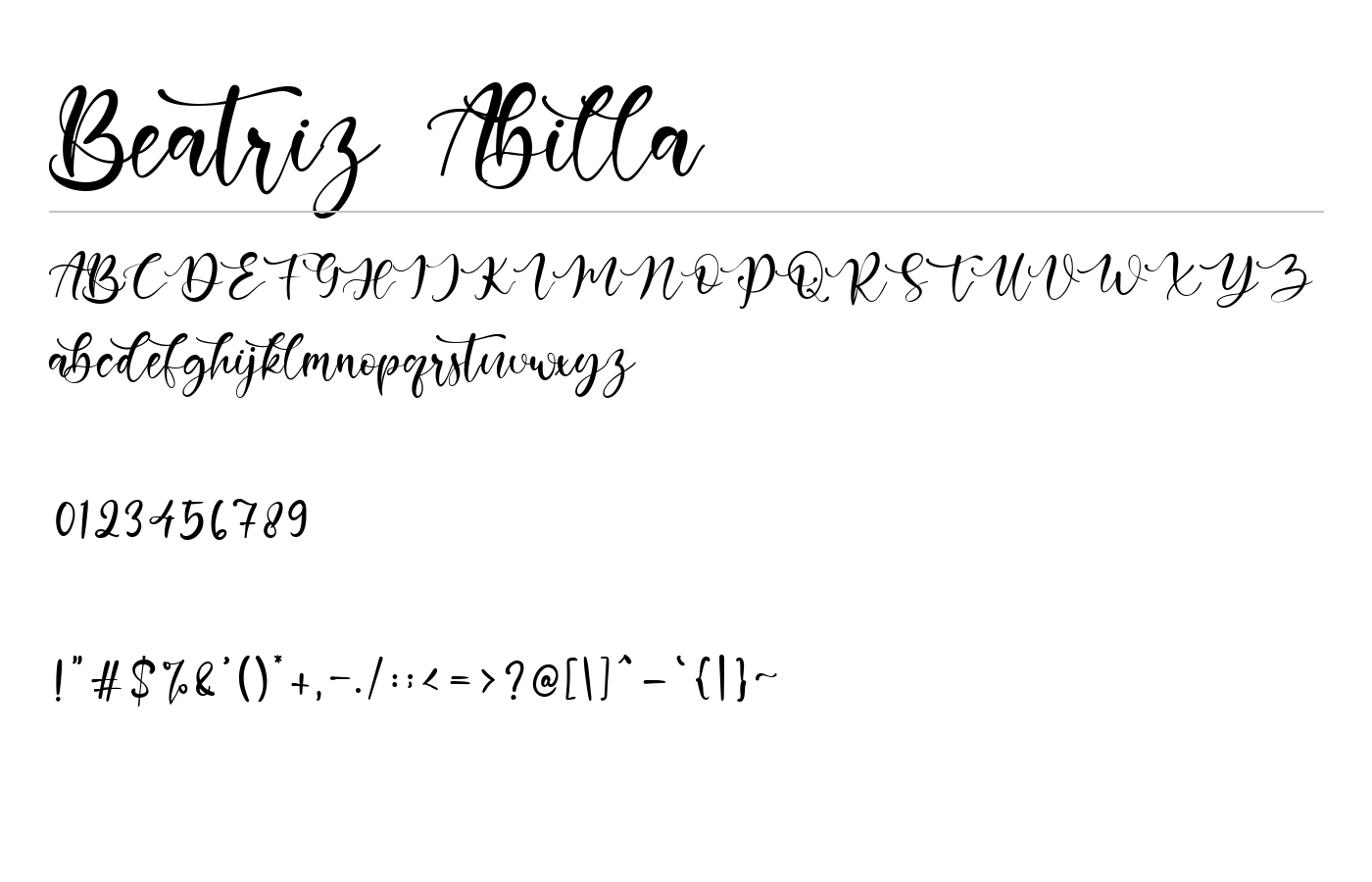
Beatriz Abilla is an elegant, flowing script font with a handwritten feel, featuring delicate yet lively strokes that create a charming and graceful look. Its contrast between thick and thin lines, along with unique glyph flourishes, makes it perfect for sophisticated branding, invitations, and stylish headlines that seek a personal, artistic touch. This font works best in designs aiming for a modern, feminine, or romantic atmosphere.
Beatriz Abilla Font
About Beatriz Abilla Font
| Designer | Typeface©(Kong Font).2021 |